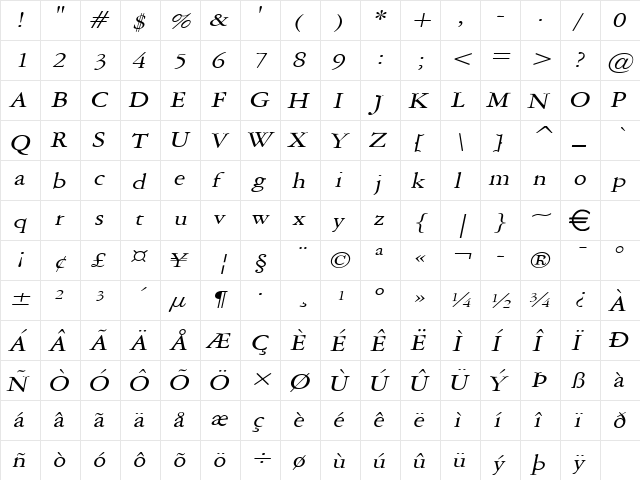
AmethystWide Italic
Design Context for AmethystWide Typeface
AmethystWide is a composed and adaptable typeface that performs quietly and consistently across a wide range of design contexts. The dynamic lean of this cut emphasises speed and emphasis in any layout.
Pro Tip: Use AmethystWide for emphasis, pull quotes, and subheadings where its slanted energy can add rhythm to the layout.